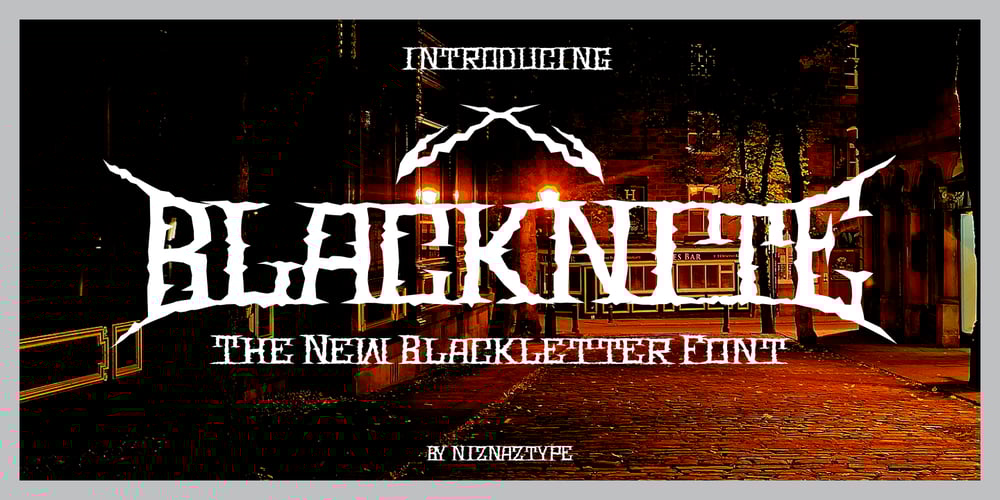
Blacknite Font Family was designed by Muhammad Nazarudin and published by Niznaztype. Blacknite contains 1 styles and family package options. Blacknite is a modern blackletter font. Blacknite created to used forthe darkness, gothic, metal, horror or creepy, underground, rock andmusic themes. Such as designed for poster, headline, wallpainting,tshirt, tittle of event, cover of product, mural and others. Blacknitehave a strongest character in all its glyphs. It can give a differentstyle in your design.Blacknite have contain the basic latin characters, it consist of :- Uppercase- Lowercase- Numeral and punctuation- Multilingual Language- Alternate GlyphBlacknite falso have a alternate glyphs in two styles.First, to change first glyph position.Second, to change last glyph position.See my preview samples.Please, enjoy it with Blacknite, a new blackletter font